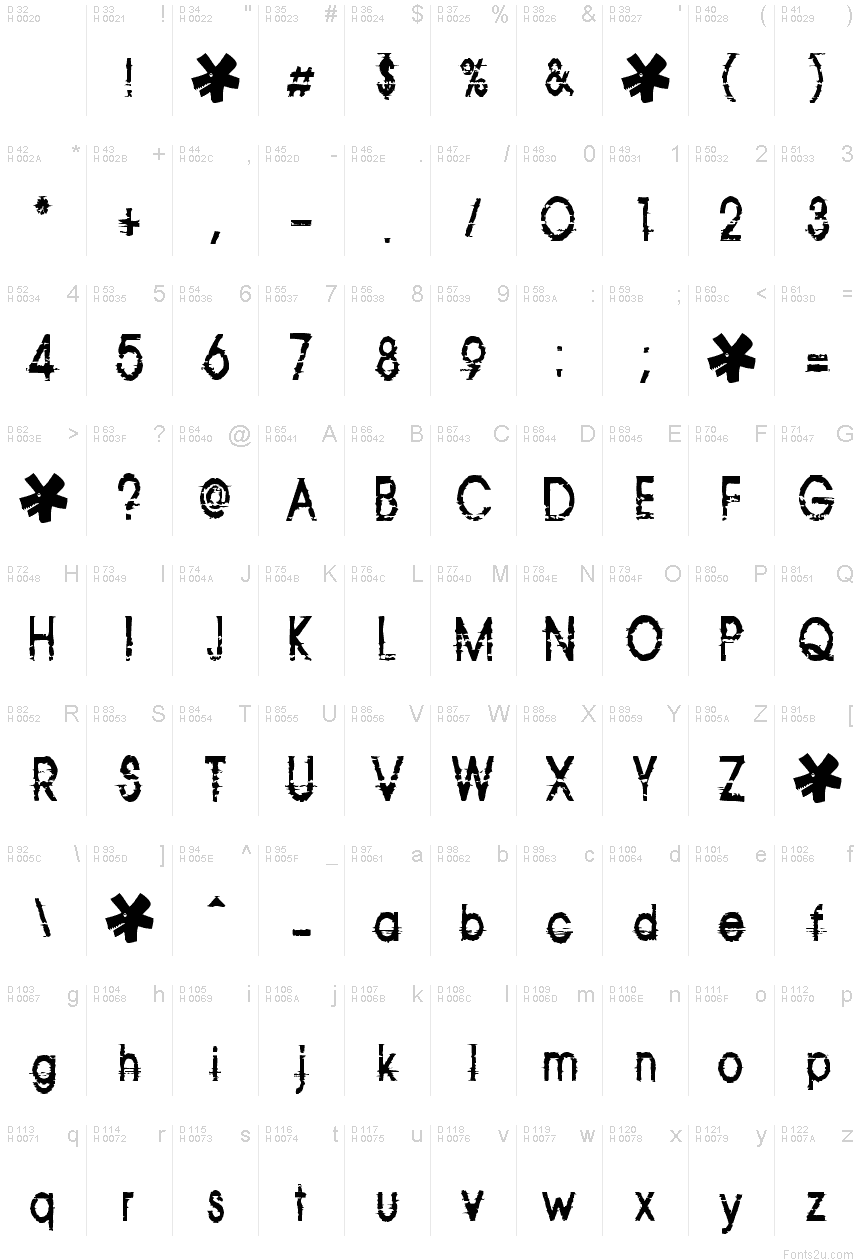
Corazon
Corazon font by Dimitris K. is a free distorted display typeface that looks like it’s been dragged across rough concrete and torn by static. Thick, inky strokes are shredded by horizontal glitches, giving each letter a restless, flickering energy while still staying readable at larger sizes. The rhythm feels organic and uneasy, like a scratched film reel or a corrupted broadcast frozen mid-scream.
Using Corazon, your titles immediately step into darker territory—horror movie posters, underground gig flyers, dystopian book covers, album art, game titles, and edgy social media graphics all benefit from its raw, chaotic texture. This free font works best when you let it shout: use it big, and pair it with a clean sans serif for supporting text to keep the message sharp and legible.